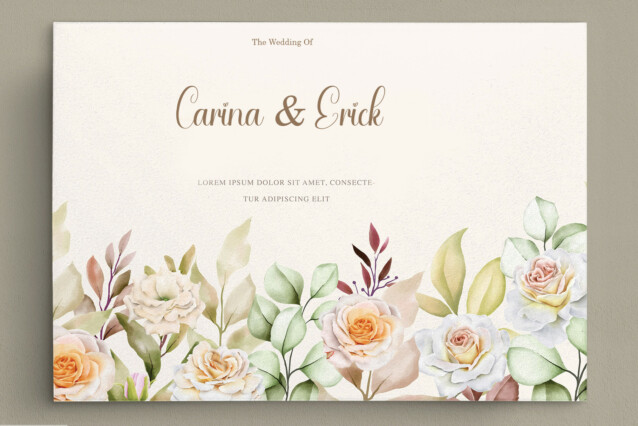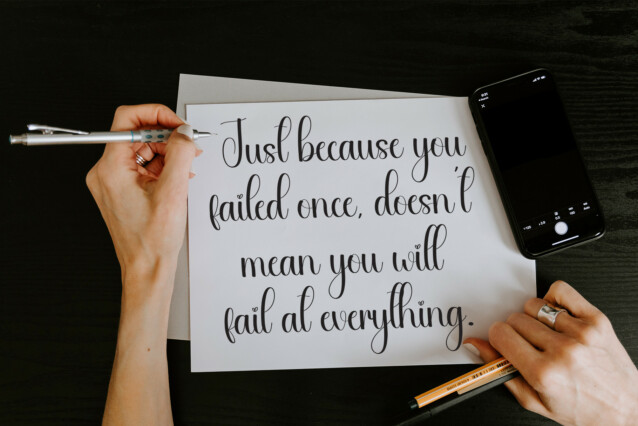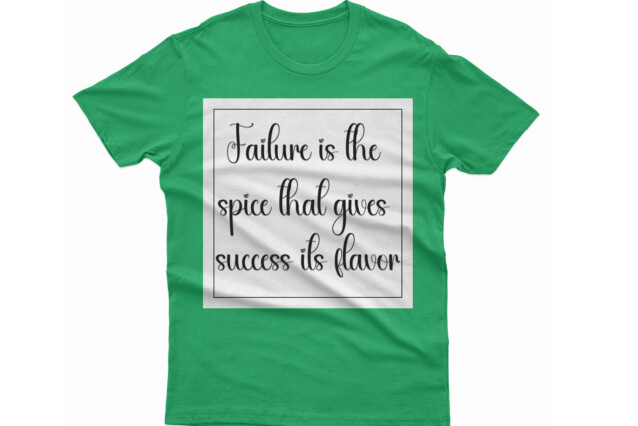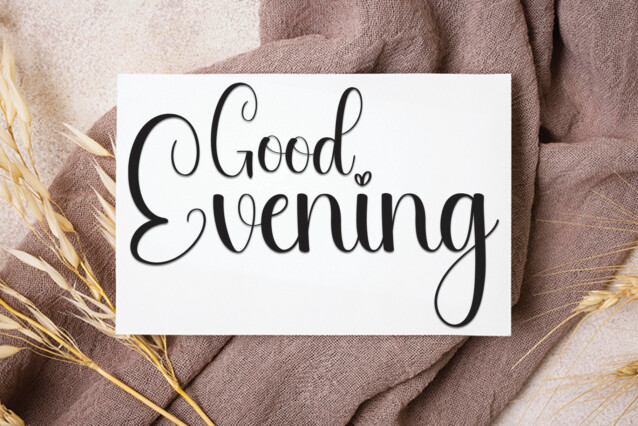
Parade Script Font is a sweet and friendly handwritten display font. Cute and fun, this font is ideal for writing wedding invitations, cards, or any other design that might need a playful touch!